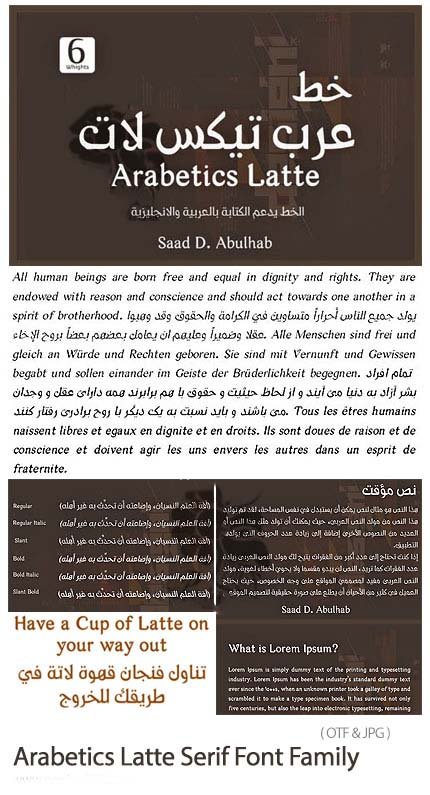
Arabetics Latte Font Family
Arab Tix Lat is a thoughtfully crafted typeface family that brings together three major scripts in perfect harmony. With its comprehensive character support and cohesive design language, this multilingual font allows you to create sophisticated projects that flow seamlessly across Persian, Arabic, and English while maintaining visual consistency.
Persian (Farsi) Script:
- Elegant Persian letterforms with proper calligraphic influence
- Full support for Persian-specific characters (گ, چ, پ, ژ)
- Correct representation of Persian numerals
- Proper character connections and positioning
- Optimized for readability in various sizes
Arabic Script:
- Coordinated Arabic design matching Persian style
- Complete Arabic character set
- Full support for Arabic diacritics and marks
- Harmonious weight and proportion
English/Latin Script:
- Complementary Latin characters for bilingual projects
- Complete uppercase and lowercase letters
- Numerals, punctuation, and special characters
- Clean, professional appearance for all applications
- Trilingual Branding: Cohesive identities across Middle Eastern and international markets
- Corporate Communications: Professional materials for global companies
- Website Design: Multilingual sites serving diverse audiences
- UI/UX Design: Clean interfaces for international applications
- Print Materials: Brochures, flyers, magazines, and publications
- Packaging: Product labels for global distribution
- Social Media: Content reaching diverse linguistic audiences
- Signage: Professional displays in multiple languages
- Mobile Apps: Clean, readable typography for international products
- Three Scripts, One Design: Consistent visual identity across Persian, Arabic, and English
- Comprehensive Support: All characters for all three languages
- Professional Quality: High-caliber font for commercial and personal use
- Time-Saving: One font family for multiple languages—no mixing required
- Cultural Authenticity: Properly designed for each script’s unique requirements
- Global Reach: Perfect for international brands and audiences
Key Features of Arab Tix Lat Font:
- Complete support for Persian (Farsi), Arabic, and English scripts
- Coordinated design across all three languages
- Full character sets for each script
- Perfect for trilingual and international design projects
- Graphic designers working across Middle Eastern and international markets
- Brand specialists developing global identities
- Web designers creating multilingual websites
- Corporate communications teams
- Publishers of multilingual materials
- UI/UX designers for international applications
- Anyone needing professional typography across Persian, Arabic, and English